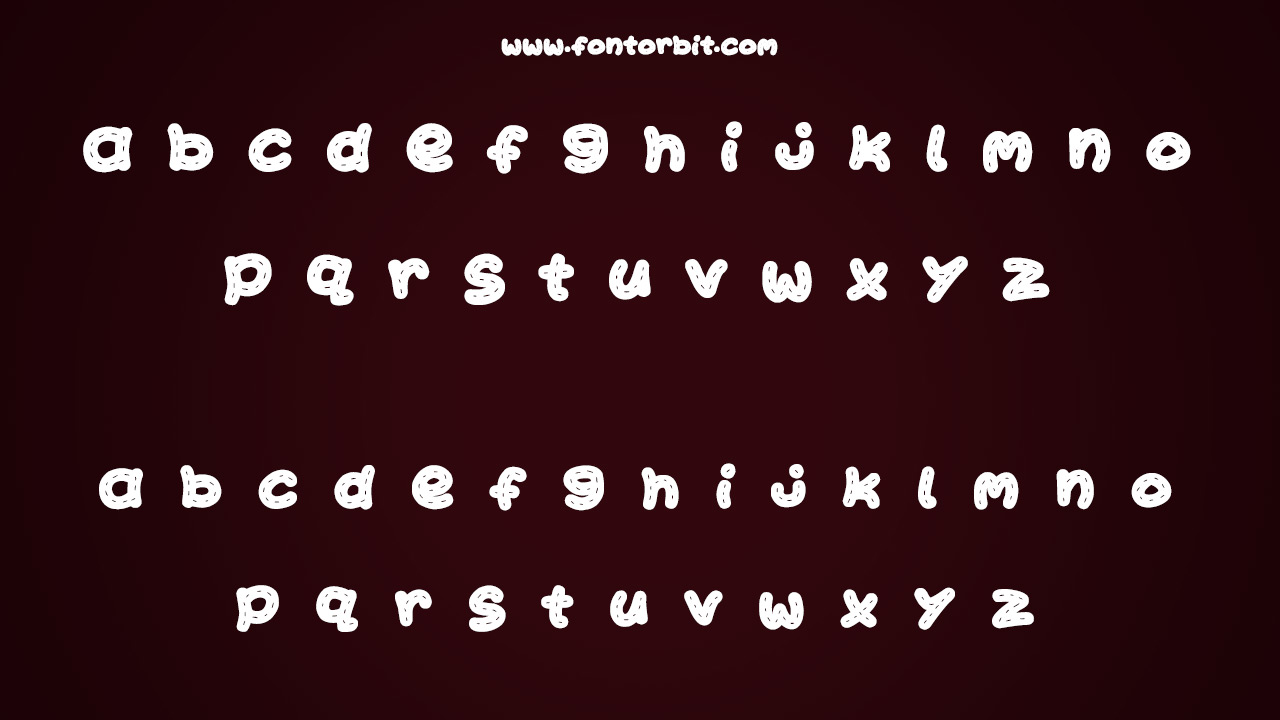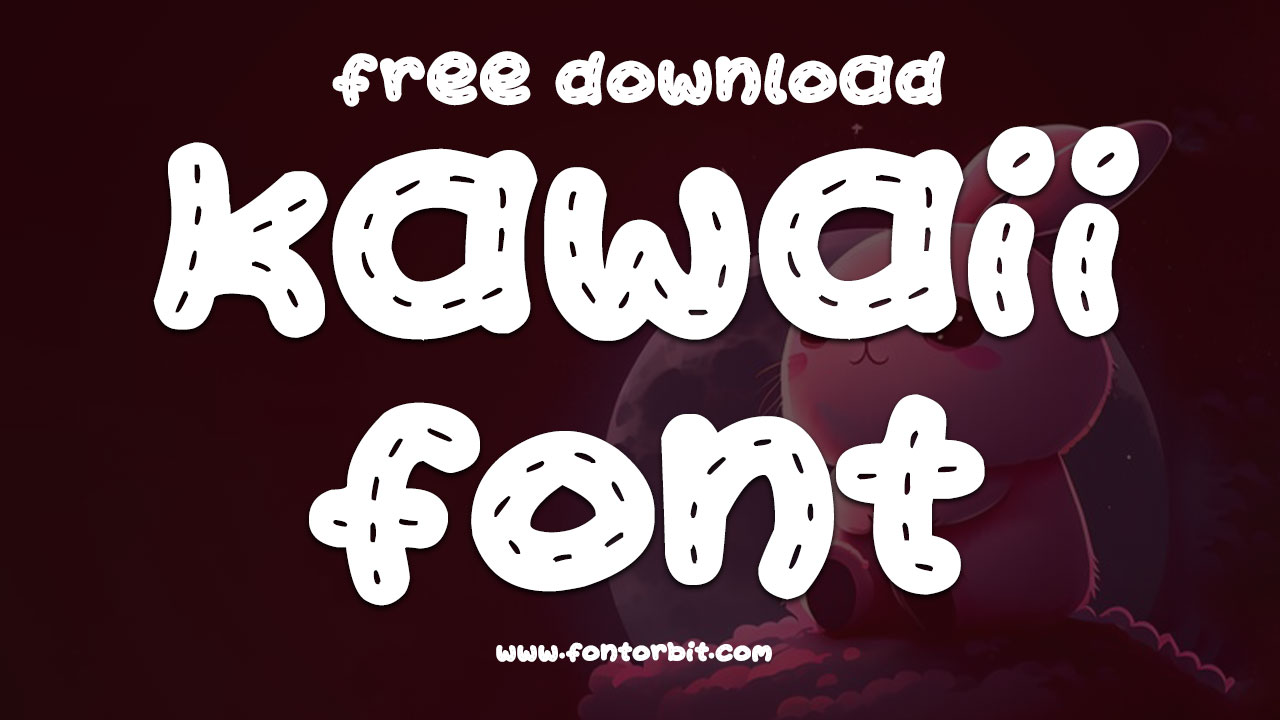
Kawaii Fonts are a delightful and whimsical collection of typefaces designed to add a cute and playful touch to your projects. Characterized by their charming, rounded, and often hand-drawn style, they have become popular in various design contexts.
These fonts are perfect for adding a fun and friendly vibe to text and can bring a sense of joy to everything from invitations to branding materials.
Kawaii Fonts Family Includes
The Kawaii Fonts family features a distinctively cute and engaging appearance. Here’s a brief overview of the family:
Kawaii Font Regular
| Style: | Handwritten |
Notable Uses Of Kawaii Fonts
Kawaii Fonts are ideal for a range of fun and informal uses. They are especially suited for:
- Children’s book covers and illustrations
- Greeting cards and party invitations
- Website headers and social media graphics
- Merchandise like t-shirts and mugs
- Creative project titles and labels
Kawaii Fonts should be used in contexts where a friendly and lighthearted tone is desired. Their playful nature makes them suitable for:
- Events and Parties
- Educational Materials
- Creative Projects
Kawaii Fonts bring a unique blend of cuteness and creativity to any project. Their rounded, playful design makes them ideal for informal and fun uses, from children’s materials to party invitations and beyond. Whether you’re designing for kids or just looking to add a whimsical touch, Kawaii Fonts offer a delightful way to make your text stand out.
1.What Are Kawaii Fonts?
Kawaii Fonts are playful and cute typefaces with rounded and often hand-drawn characters.
3.What Are The Typical Uses For Kawaii Fonts?
People use Kawaii Fonts in children’s books, invitations, merchandise, and any project that needs a cute and playful touch.
5.What Is The Best Way To Incorporate Kawaii Fonts Into My Design?
Use them for headings, invitations, or any text where a whimsical and fun style is desired.
6.Can Kawaii Fonts Be Used On Websites?
Absolutely, they can add a fun element to website headers, buttons, and other text elements.